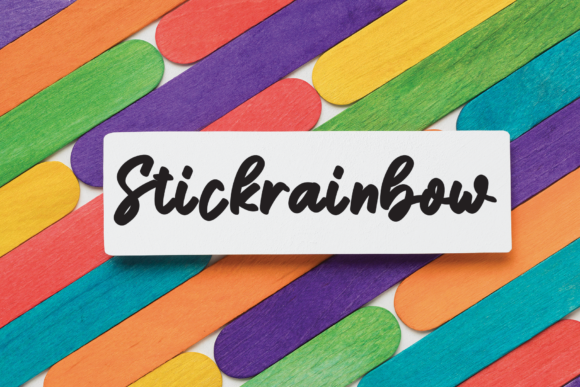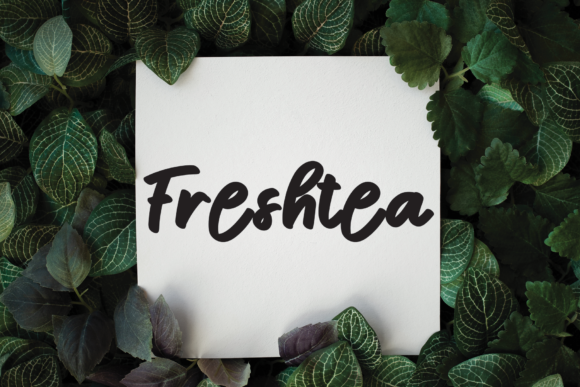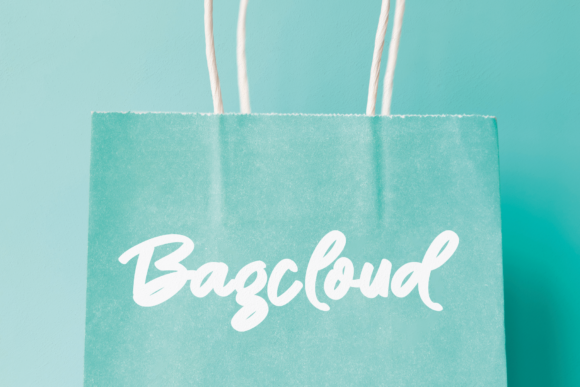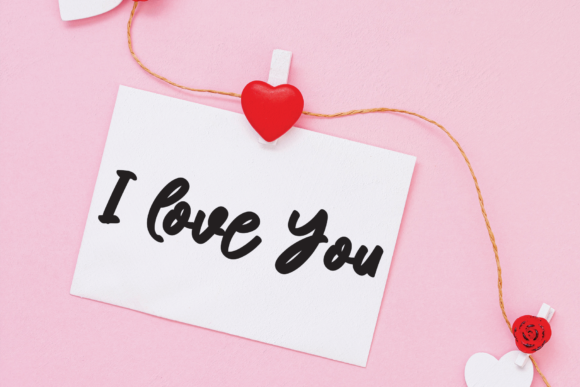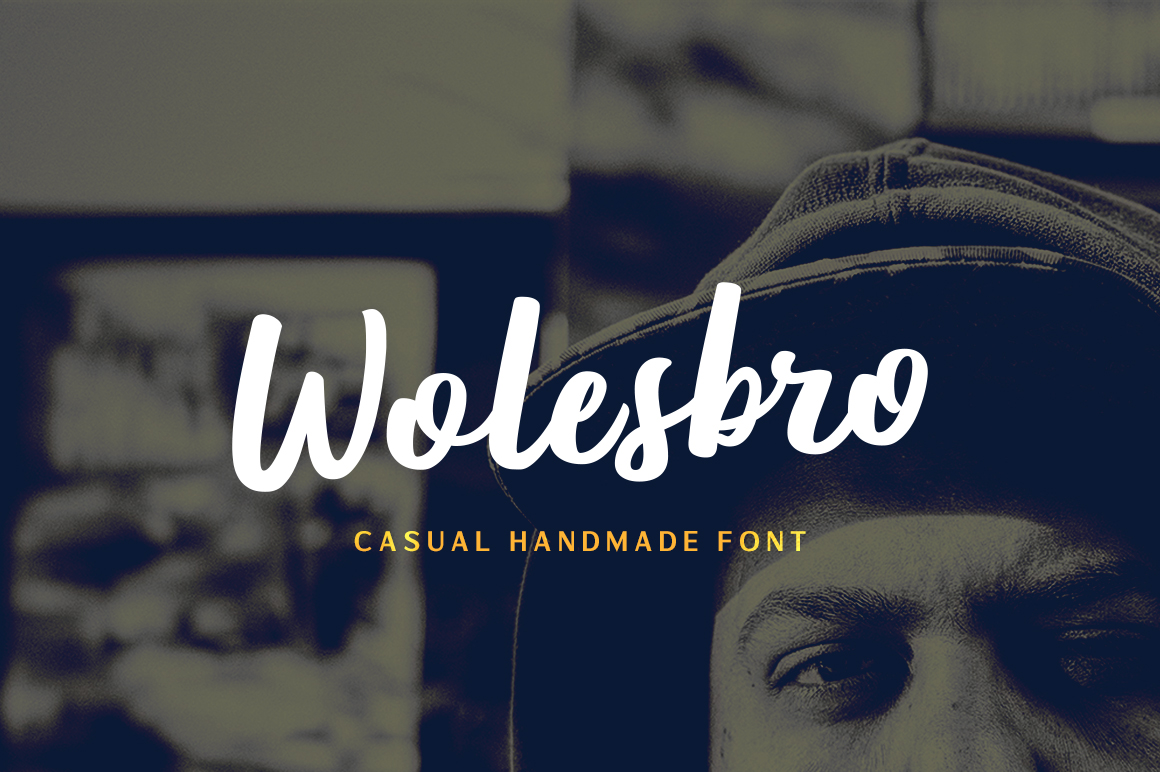
Signature Handmade Font
About Signature Handmade Font
Signature HandmadeĀ is a sweet and delicate handwritten font. Dainty and joyful, this font will be ideal for writing wedding invitations, cards or any other design that may need a romantic, personalized touch!